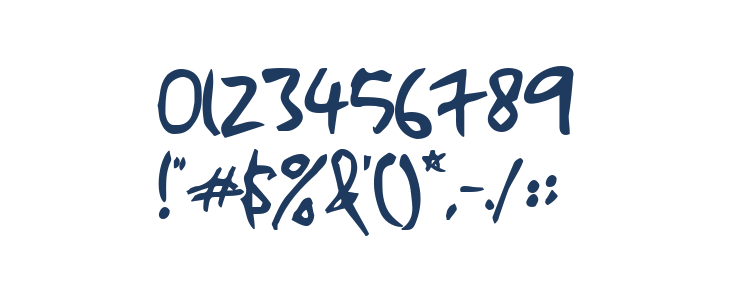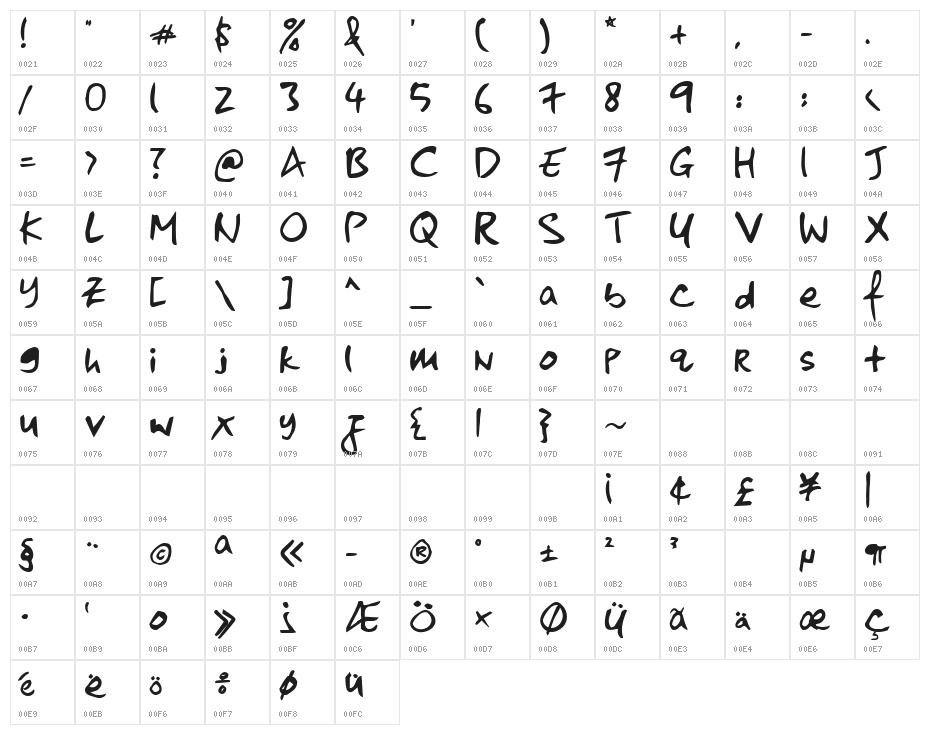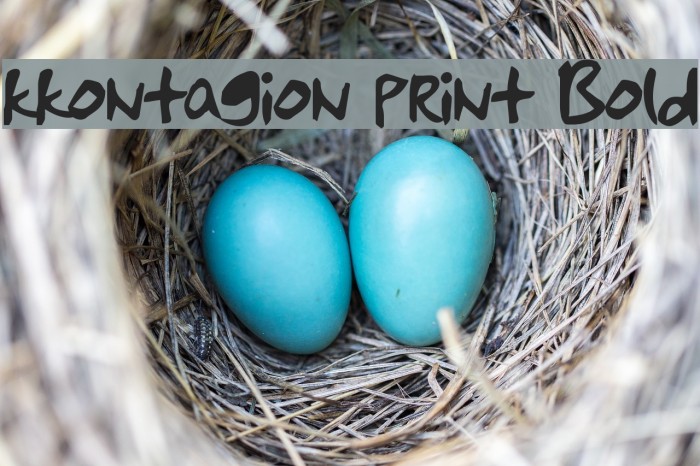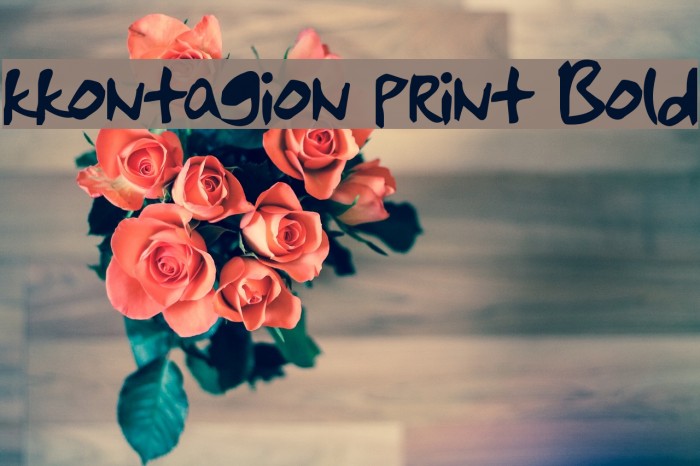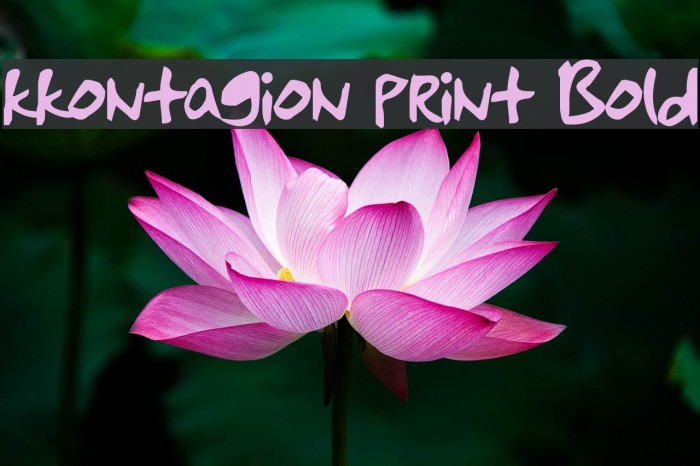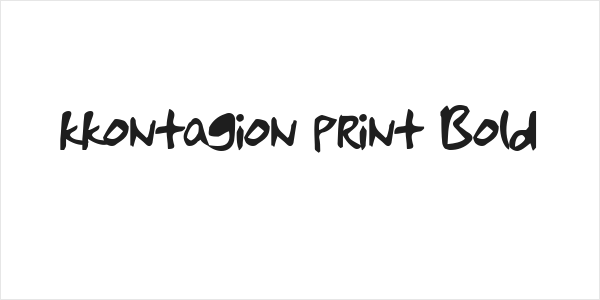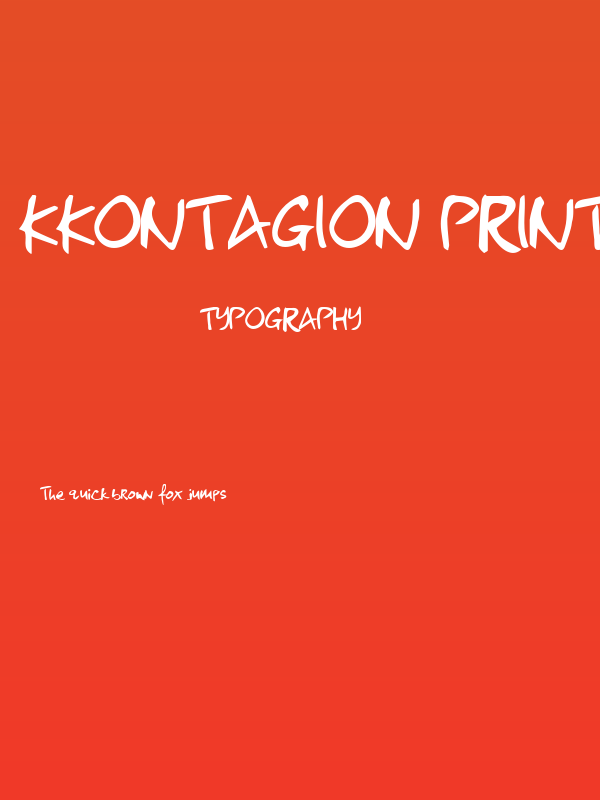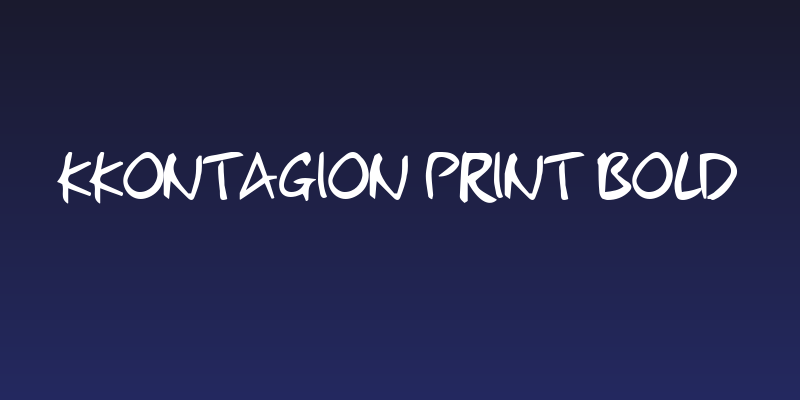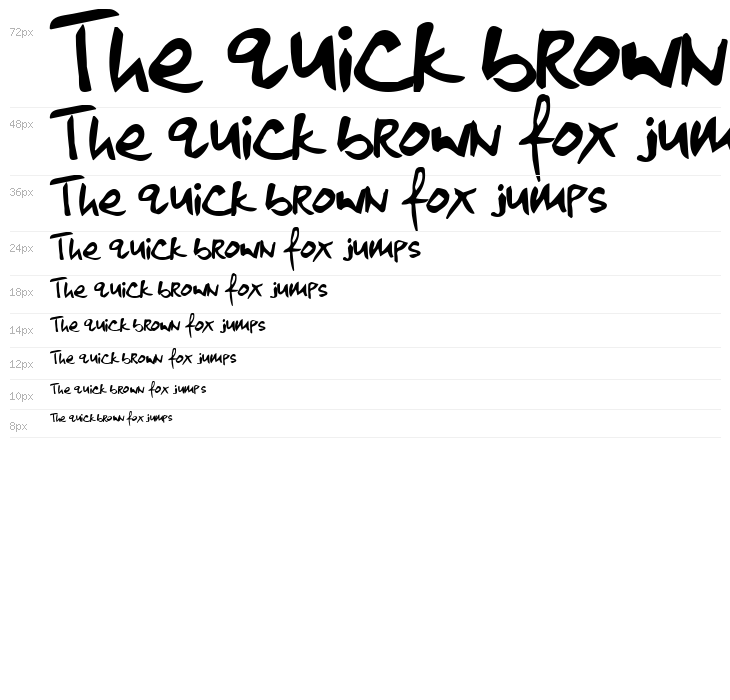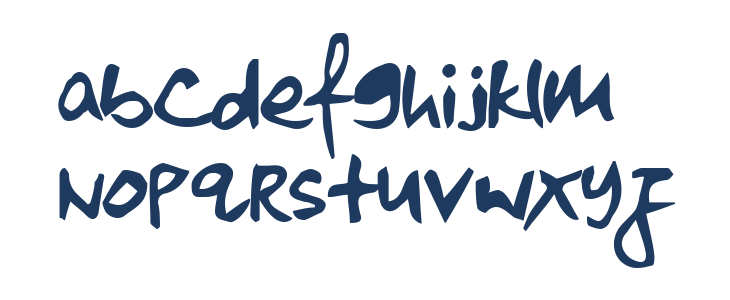
kkontagion print Bold Font
kkontagion print Bold Description
This font exhibits a bold and expressive handwritten style, characterized by its dynamic and energetic strokes. The letters are crafted with a playful and informal touch, giving it a lively and spontaneous appearance. The uppercase and lowercase letters maintain a consistent flow, while the numbers and special characters complement the overall aesthetic. The font's boldness is evident in its thick strokes, which add a sense of weight and presence. This style is ideal for projects that require a personal and creative touch, making it suitable for artistic and casual applications.
| Proposed Projects | Ideal for greeting cards, posters, artistic projects, and branding that requires a personal touch. |